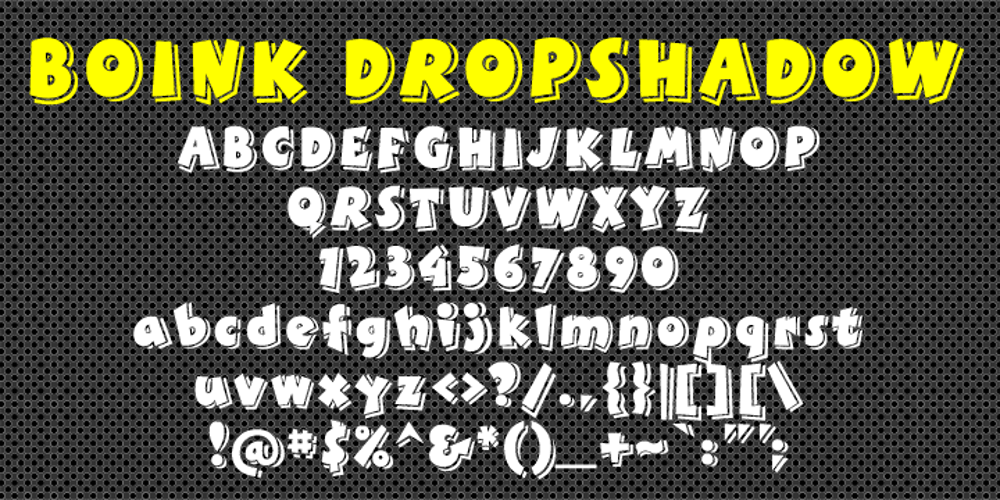
Boink Dropshadow Font Family was designed by Robert Petrick and published by Robert Petrick. Boink Dropshadow contains 1 styles and family package options. Boink Dropshadow is a variation on my ITC Boink font. This is a great font for headlines & fun to design with.